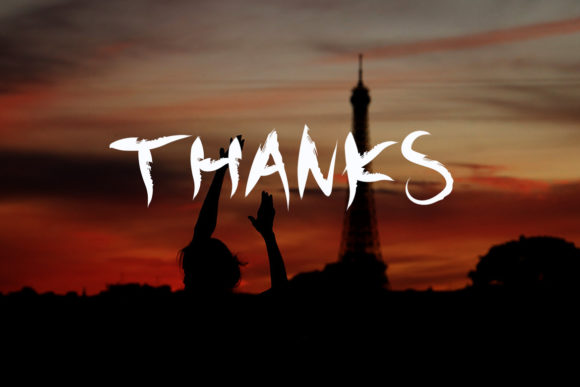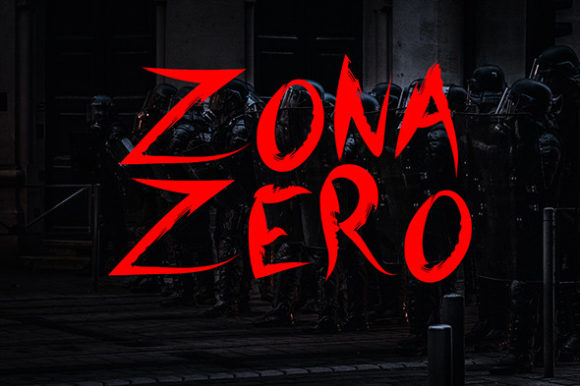
Introducing After Green Font: Elevate Your Designs with a Cool, Brushed, and Urban Style
In the world of design, fonts play a crucial role in conveying the message and aesthetic of a project. For those seeking a unique and refreshing look, After Green Font is an excellent choice. This cool, brushed, and urban styled display font is specifically crafted to add a beautiful and modern touch to your designs.
What is After Green Font?
After Green Font is a distinctive display font that boasts a brushed and urban feel. Its cool and refreshing style makes it perfect for designers and crafters looking to add a modern twist to their projects. Whether you’re working on a logo, poster, or social media graphic, After Green Font is sure to make your design stand out.
Key Features of After Green Font
- Cool and Brushed Style: After Green Font features a unique brushed style that gives it a cool and laid-back vibe.
- Urban Aesthetic: The font’s urban feel makes it perfect for designs that require a modern and edgy look.
- Display Font: After Green Font is specifically designed as a display font, making it ideal for headlines, titles, and other prominent text elements.
- Refreshing Look: The font’s refreshing style ensures that your designs will look modern and visually appealing.
Who Can Benefit from After Green Font?
After Green Font is an excellent choice for a wide range of designers and crafters, including:
- Graphic Designers: Add a modern touch to your brochures, posters, and other graphic design projects.
- Logotype Designers: Create stunning logos that stand out with After Green Font’s unique style.
- Social Media Influencers: Elevate your social media graphics and make your content more engaging.
- Crafters: Use After Green Font to add a professional touch to your handmade products, such as custom t-shirts, mugs, and more.
Tips for Using After Green Font
To get the most out of After Green Font, consider the following tips:
- Pair with Neutral Backgrounds: Let After Green Font be the focal point by pairing it with neutral backgrounds.
- Experiment with Colors: Try out different colors to find the perfect match for your design.
- Use for Headlines and Titles: Take advantage of After Green Font’s display font style by using it for headlines and titles.
After Green Font is a versatile and stylish display font that’s perfect for designers and crafters looking to add a modern touch to their projects. With its cool, brushed, and urban style, this font is sure to elevate your designs and make them stand out. Try After Green Font today and experience the difference it can make in your work.